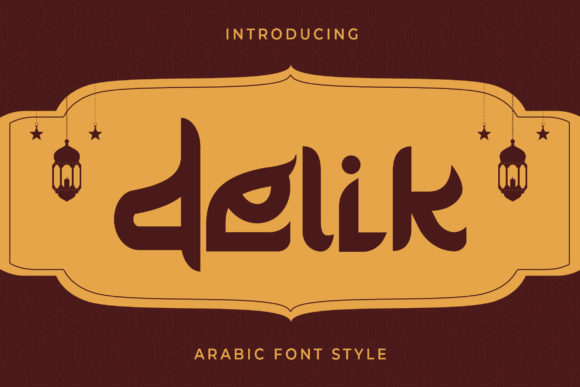
Introducing Delik Font: An Enchanting Typographic Masterpiece That Will Elevate Your Digital Creations with Grace and Elegance
Journey into the realm of visual allure with Delik Font, a display font that captivates and inspires like no other. With its intricate details and captivating glyphs, Delik transcends the boundaries of ordinary fonts, offering an unmatched level of sophistication and beauty that will leave a lasting impression on your audience.
Crafted with meticulous attention to detail, Delik Font draws inspiration from the rich and vibrant Arabic style, paying homage to the artistry and craftsmanship of this ancient tradition. Whether you are working on branding logos, Islamic themes, or projects infusing Ramadan's spiritual essence, Delik Font will seamlessly blend with your vision, adding a touch of magic and exclusivity that sets your creations apart.
Dive into the captivating world of Delik Font and unleash your creativity like never before. This versatile font will effortlessly adapt to your diverse projects, providing you with endless opportunities to explore new typographic horizons. Let Delik's enchanting curves and elegant lines transport you to a world of limitless possibilities, where your imagination knows no bounds.
* Ignite Your Brand with Unforgettable Logos:
Step into the spotlight and watch your brand's identity soar to new heights with Delik Font. Create distinctive logos that leave an indelible imprint on your audience's minds, leaving them captivated and yearning for more.
* Captivate Your Audience with Islamic Themes:
Harness the power of Delik Font to craft Islamic-themed designs that radiate sanctity and reverence. Express your faith with elegance, creating breathtaking posters, invitations, and social media graphics that celebrate the beauty of Islamic culture.
* Embrace the Spirit of Ramadan with Delik's Timeless Beauty:
As the holy month of Ramadan approaches, embrace the spirit of reflection and renewal with Delik Font. Design enchanting greeting cards, banners, and flyers that evoke the essence of Ramadan, fostering a sense of unity and devotion among your community.
With Delik Font, you have the power to transform your creative visions into stunning realities. Whether you are a seasoned designer or a budding enthusiast, Delik Font will become your trusted companion, guiding you along the path of typographic excellence.